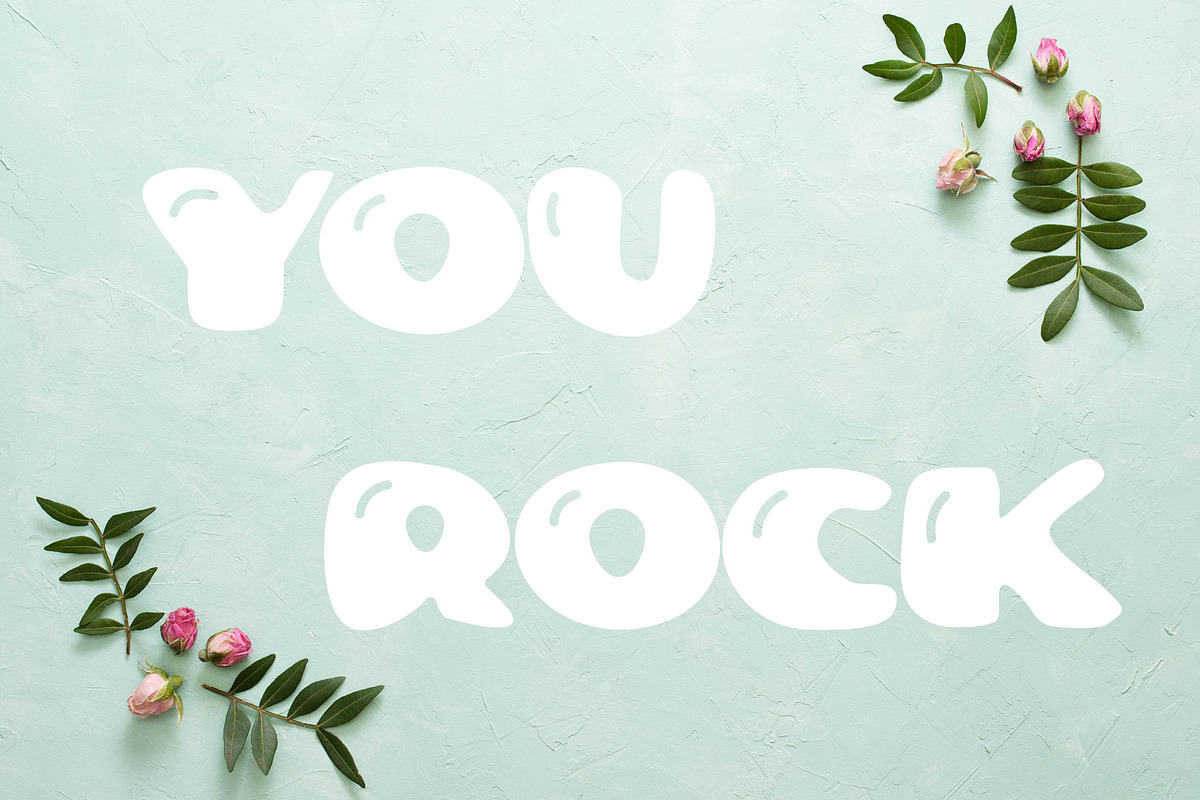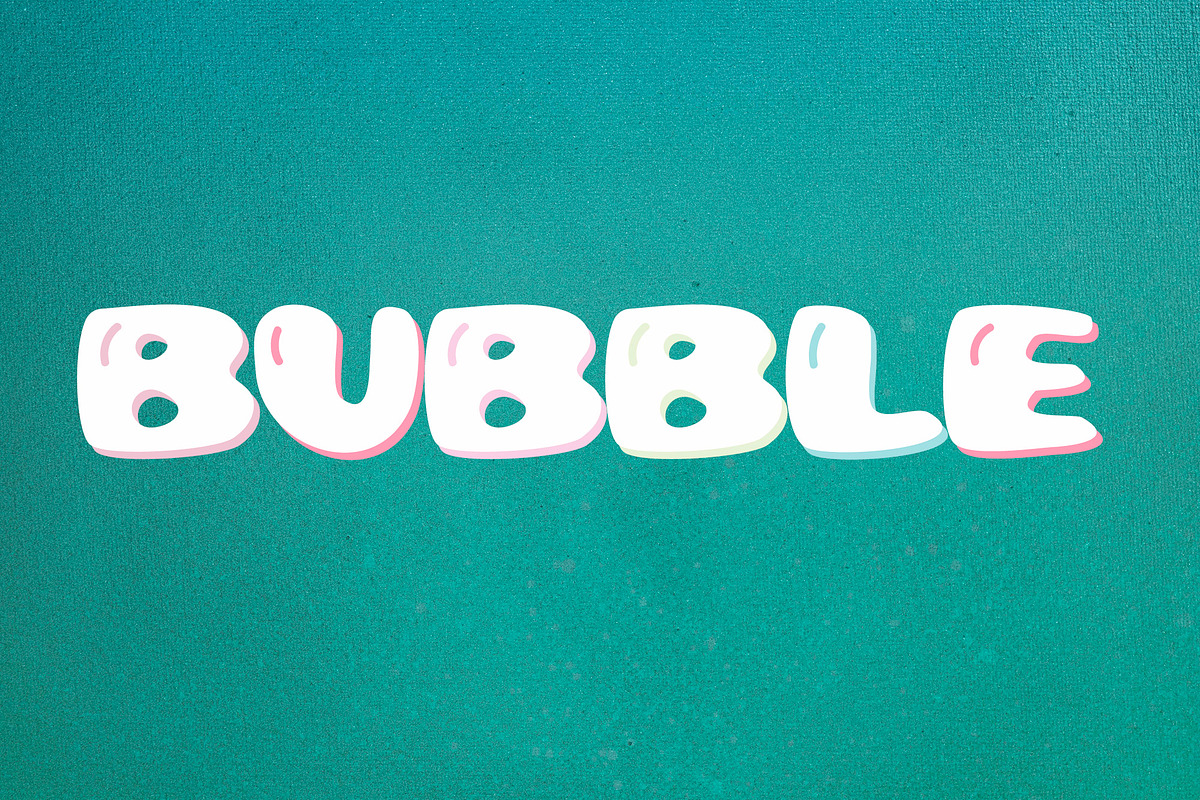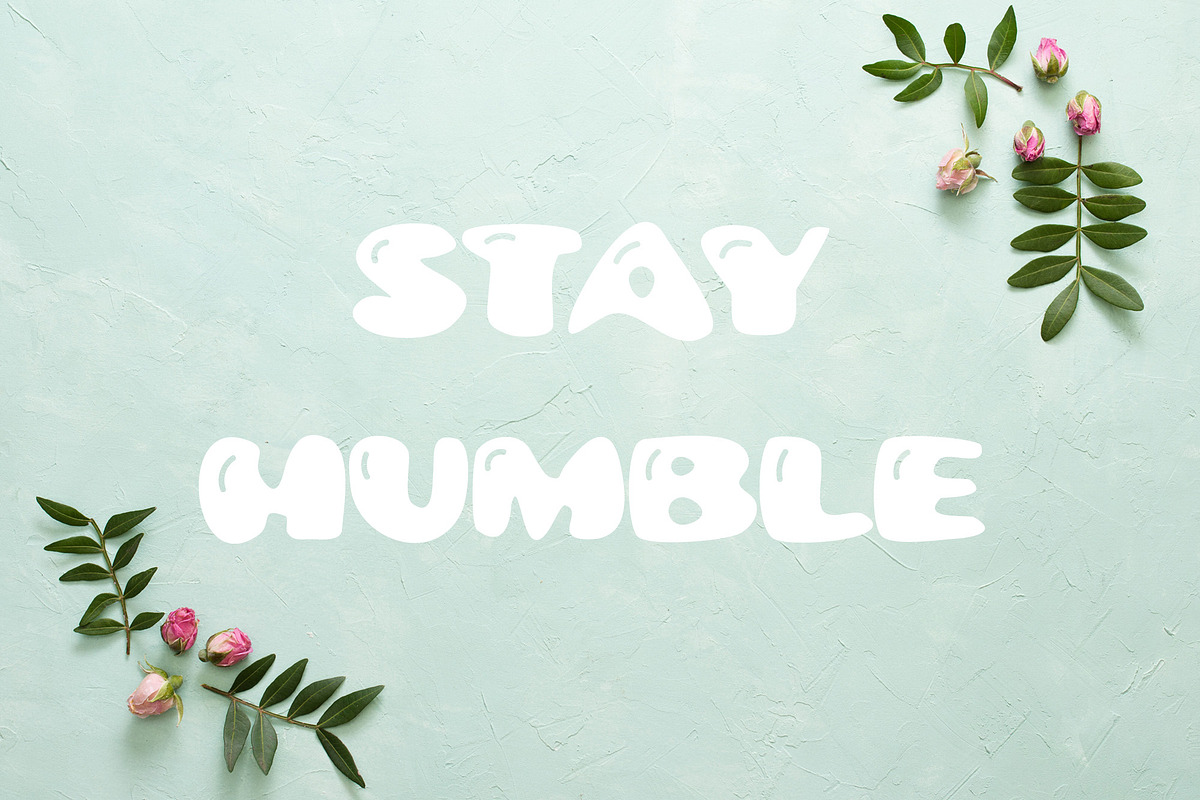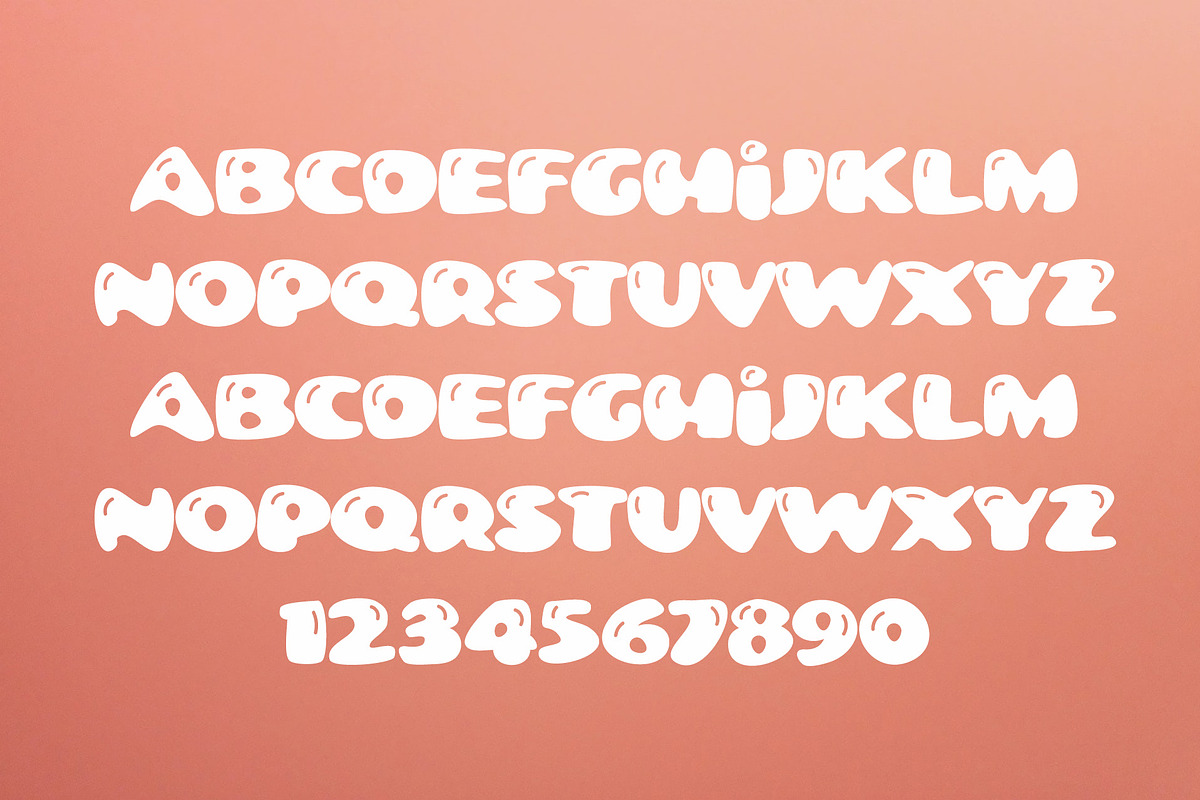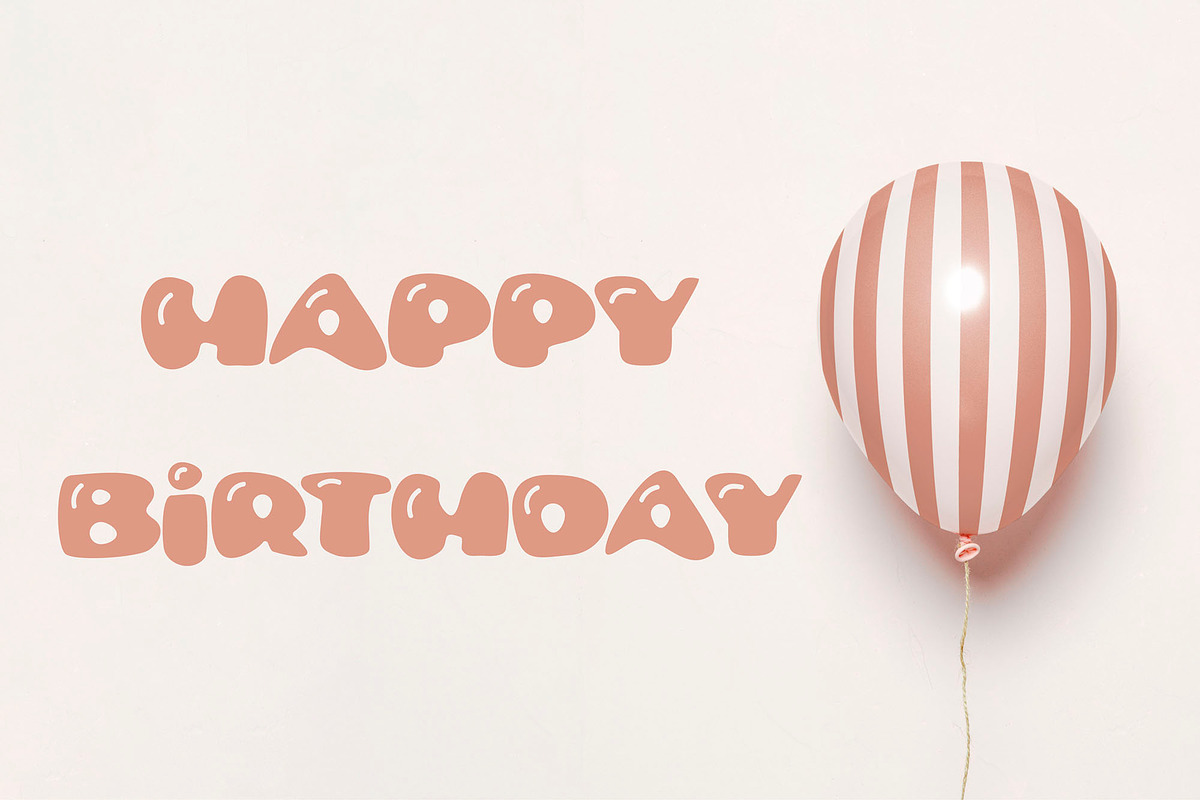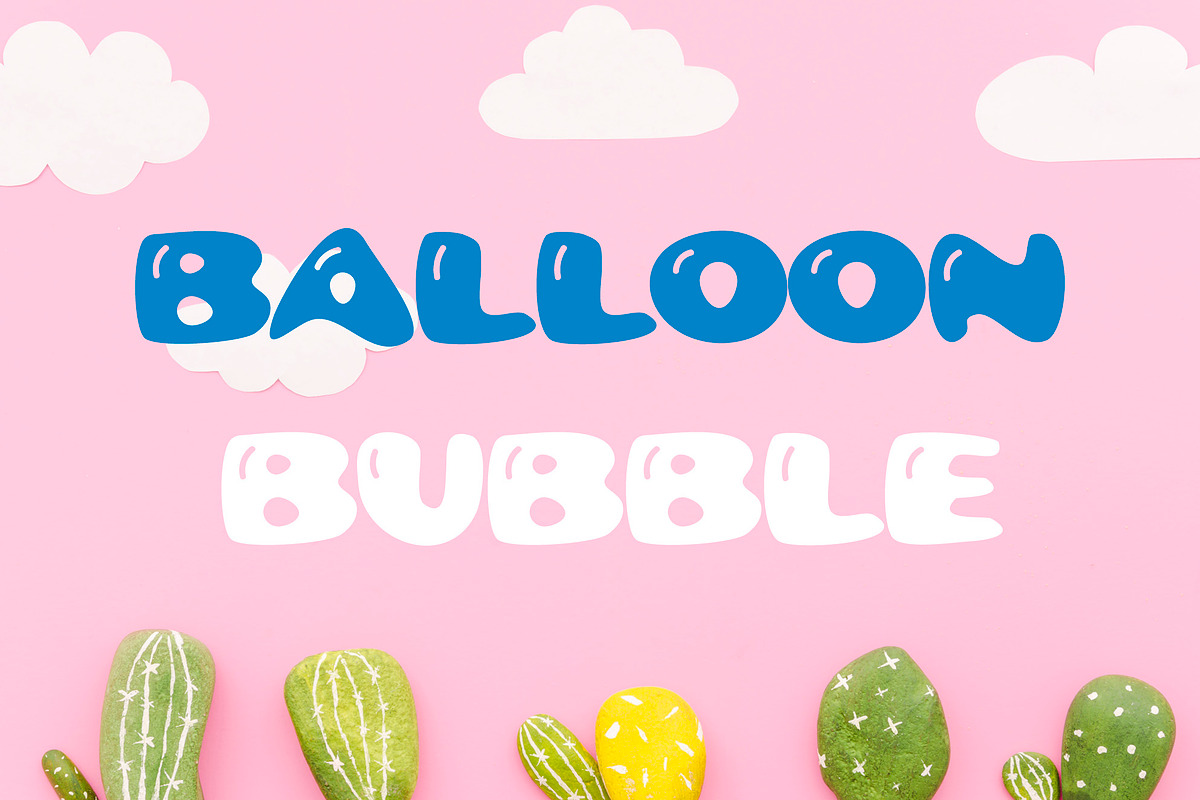
Balloon Bubble Font
Balloon Bubble Font.
Balloon Bubble is a cute and incredibly jolly display font. Add this sweet and full of life font to each of your creative ideas related to either school or children, and you will love the results. Perfect for birthday cards, children’s invitations, quotes, t-shirts and more..
It contains two fonts Balloon Bubble Regular and Balloon Bubble Shadow.